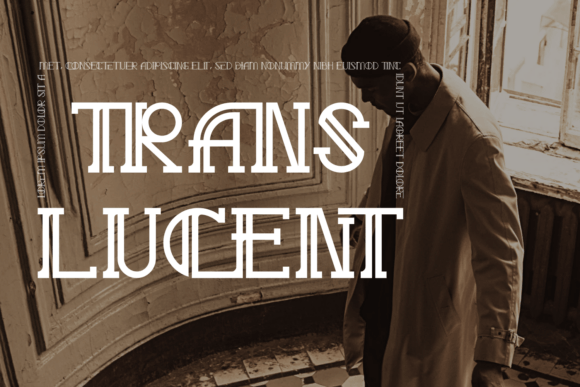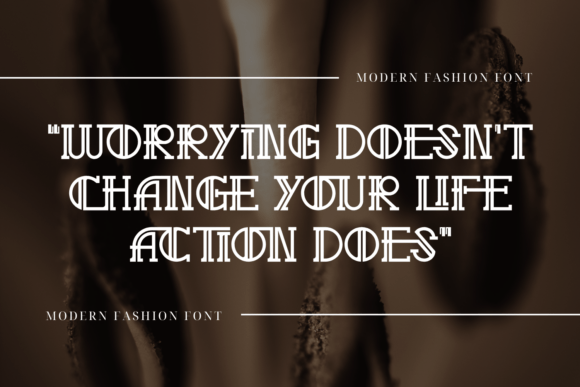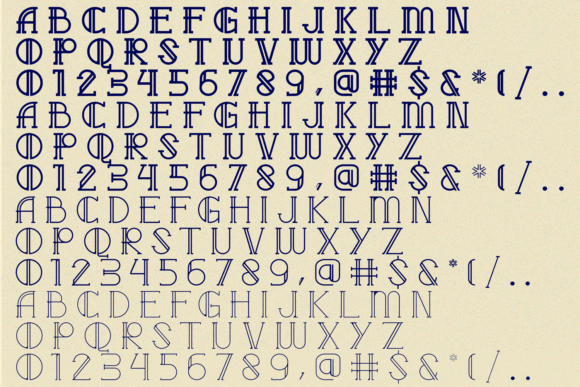
Introduction to Modern Fashion Font
Modern Fashion Font, a one-of-a-kind Art Deco typeface that exudes elegance and modern sophistication.
Perfectly balancing dynamic thick and thin strokes, itโs charm lies in its striking two-line body, making it an extraordinary choice for vintage-inspired yet contemporary projects This unique typeface is defined by its dynamic 2-line body, which creates a sense of sophistication and movement, making it ideal for modern designs that aim to evoke timeless luxury.
Key Features of Modern Fashion Font
Why Choose Modern Fashion Font?